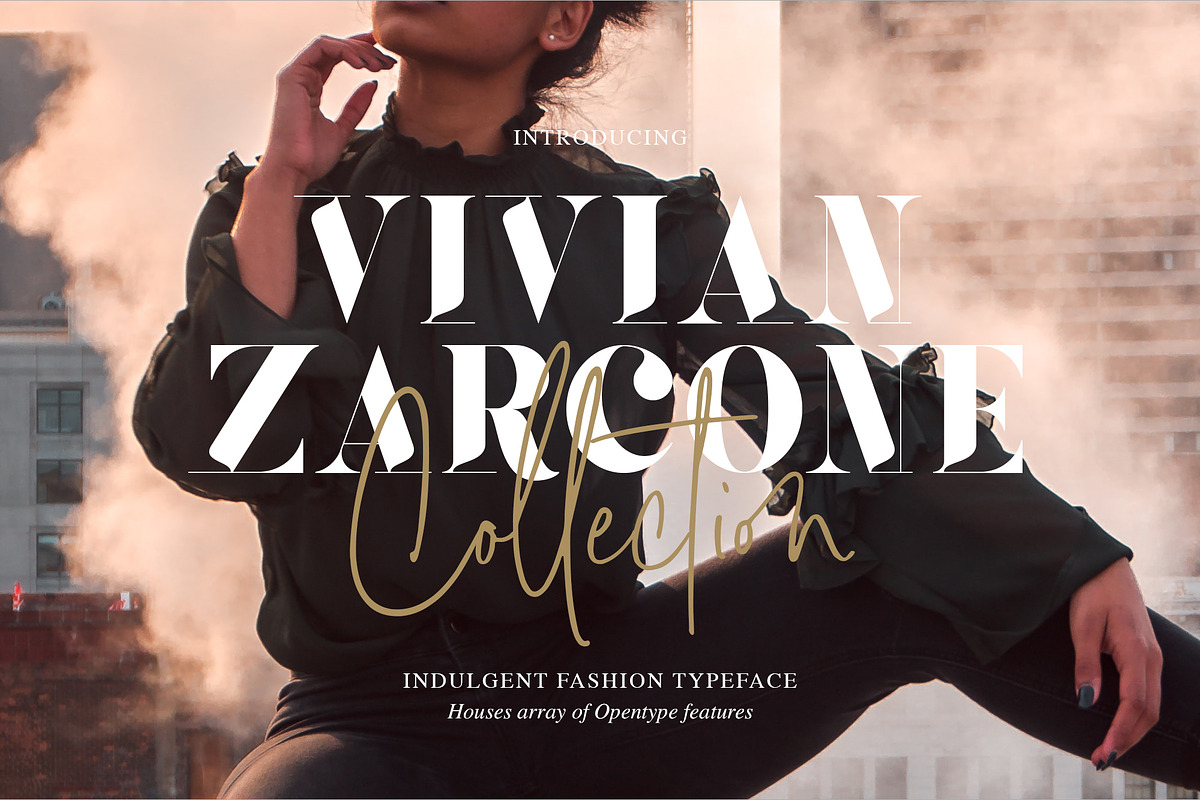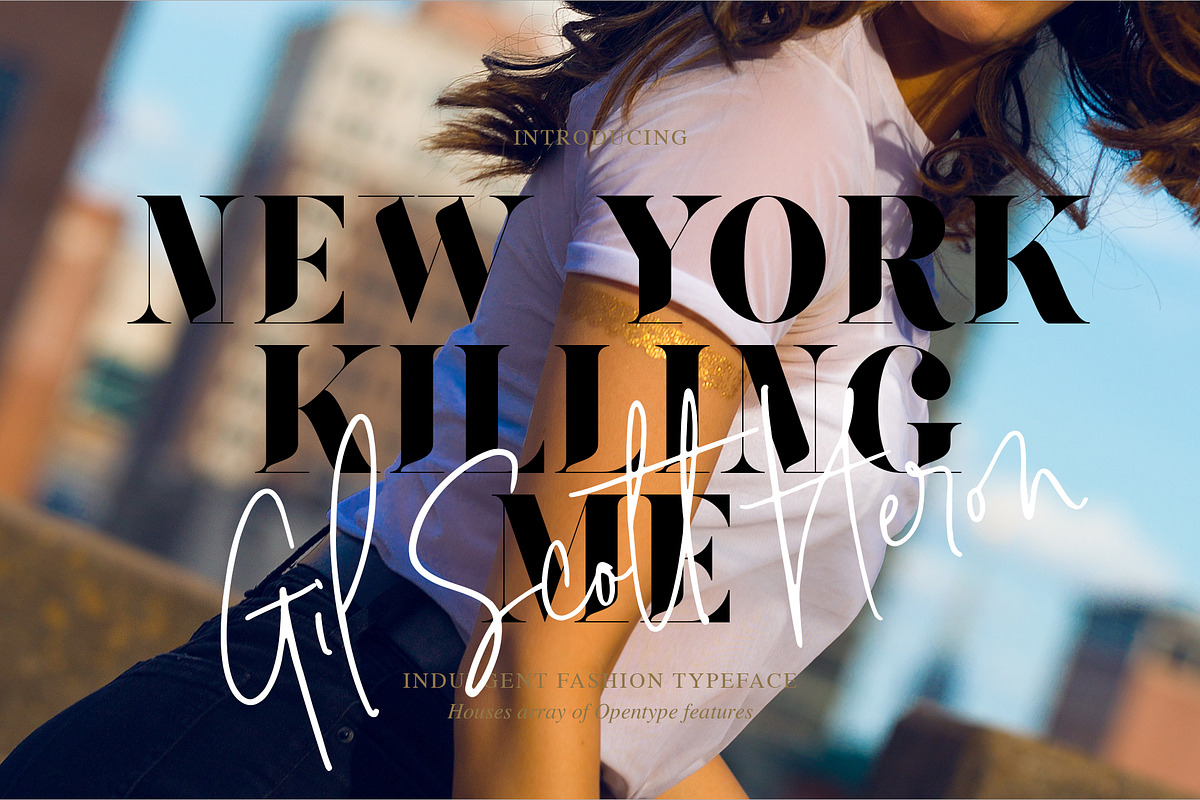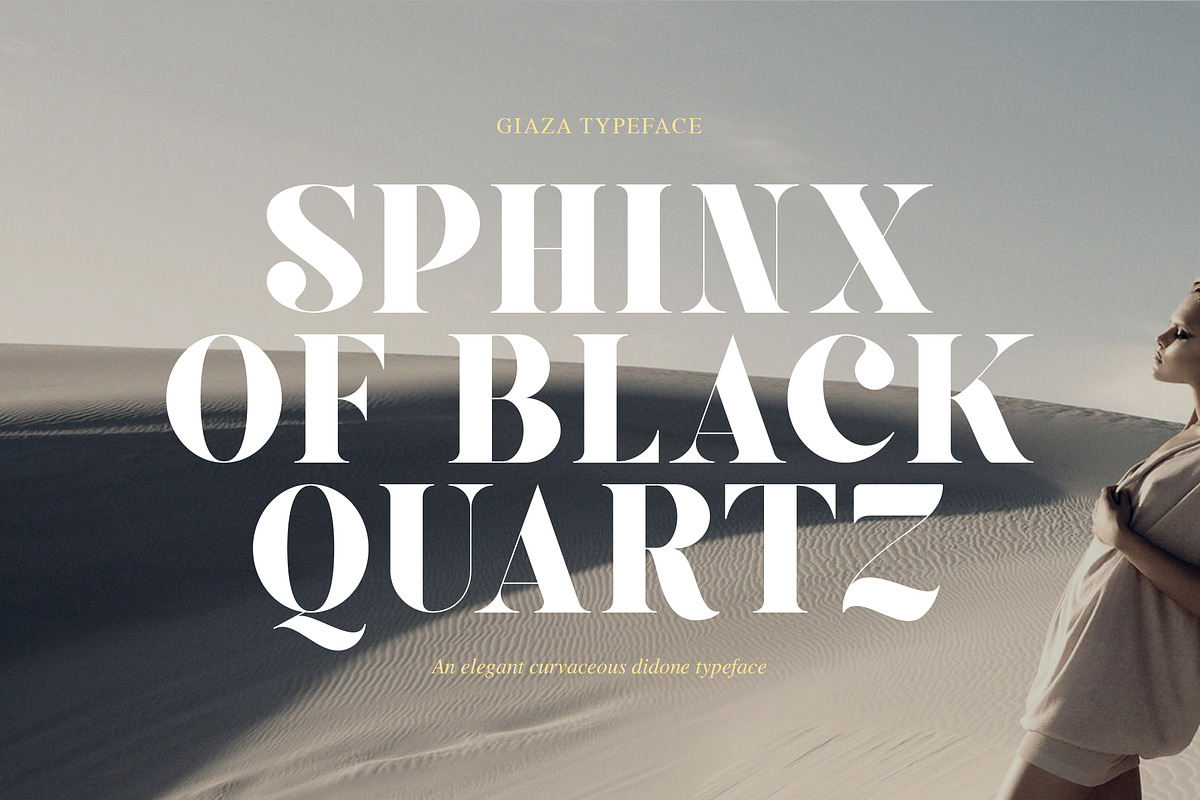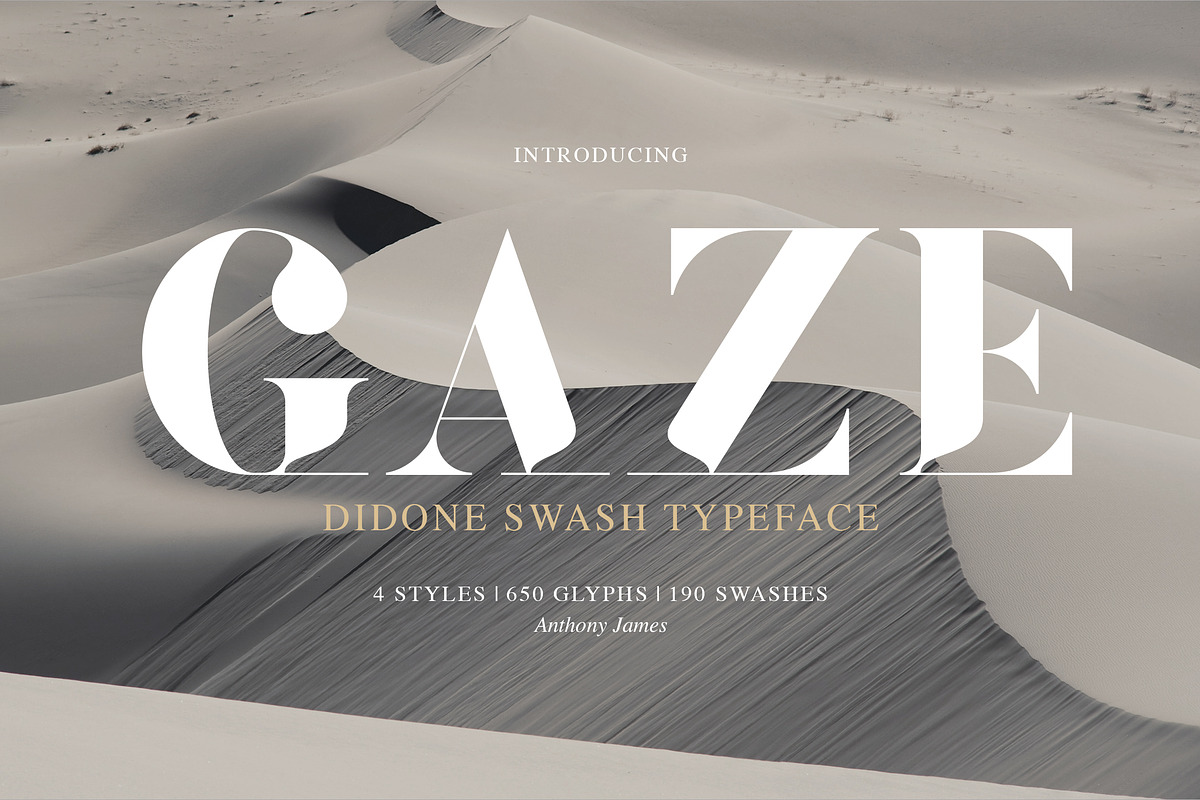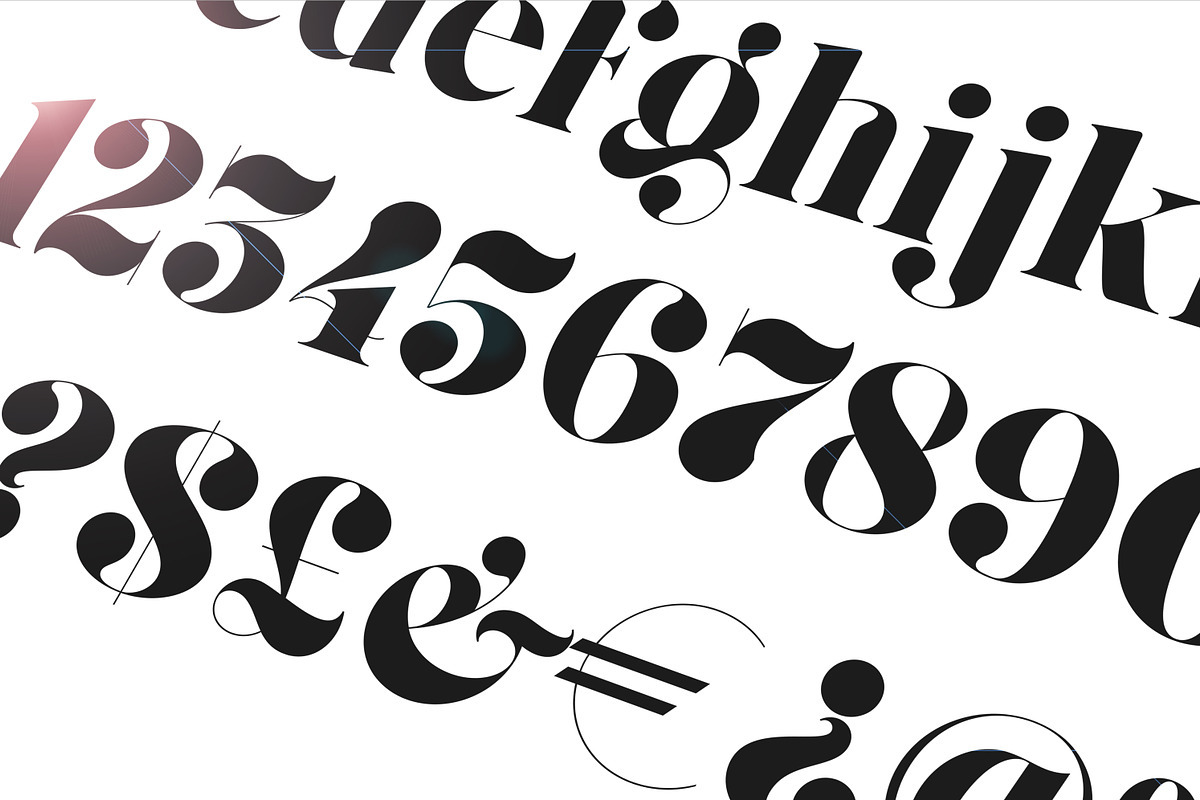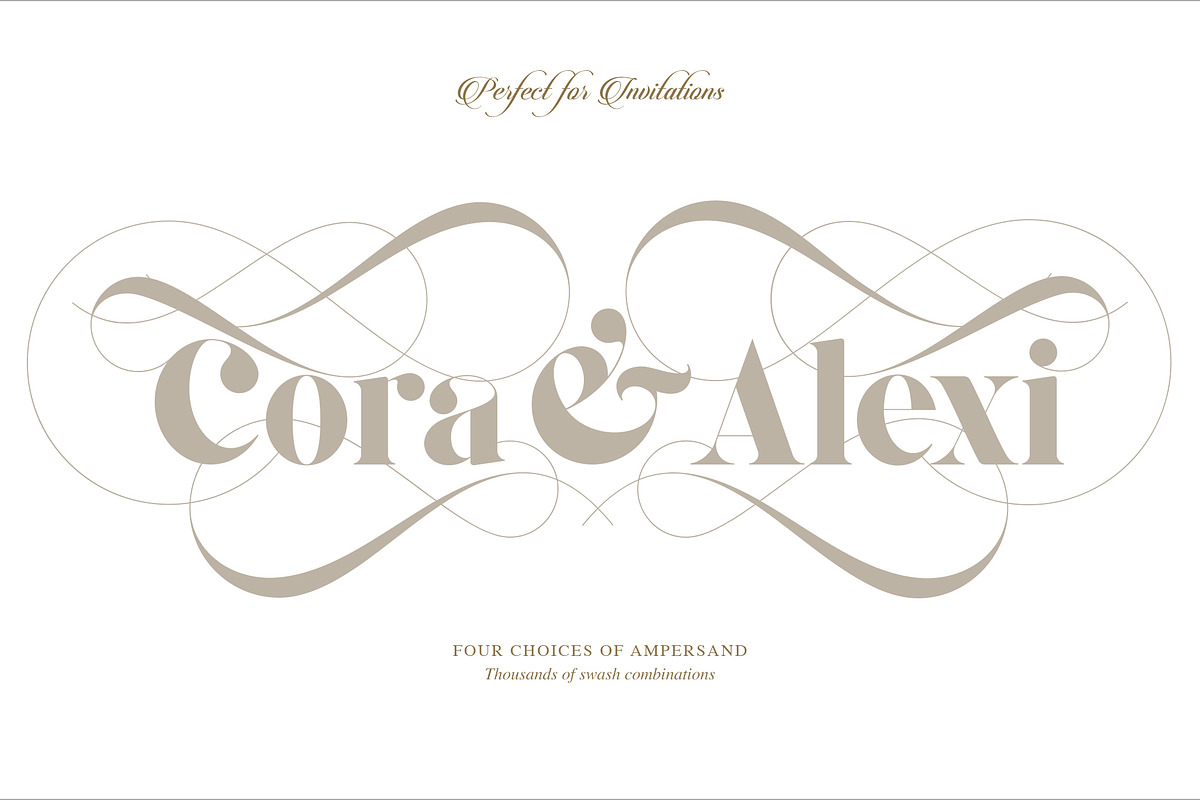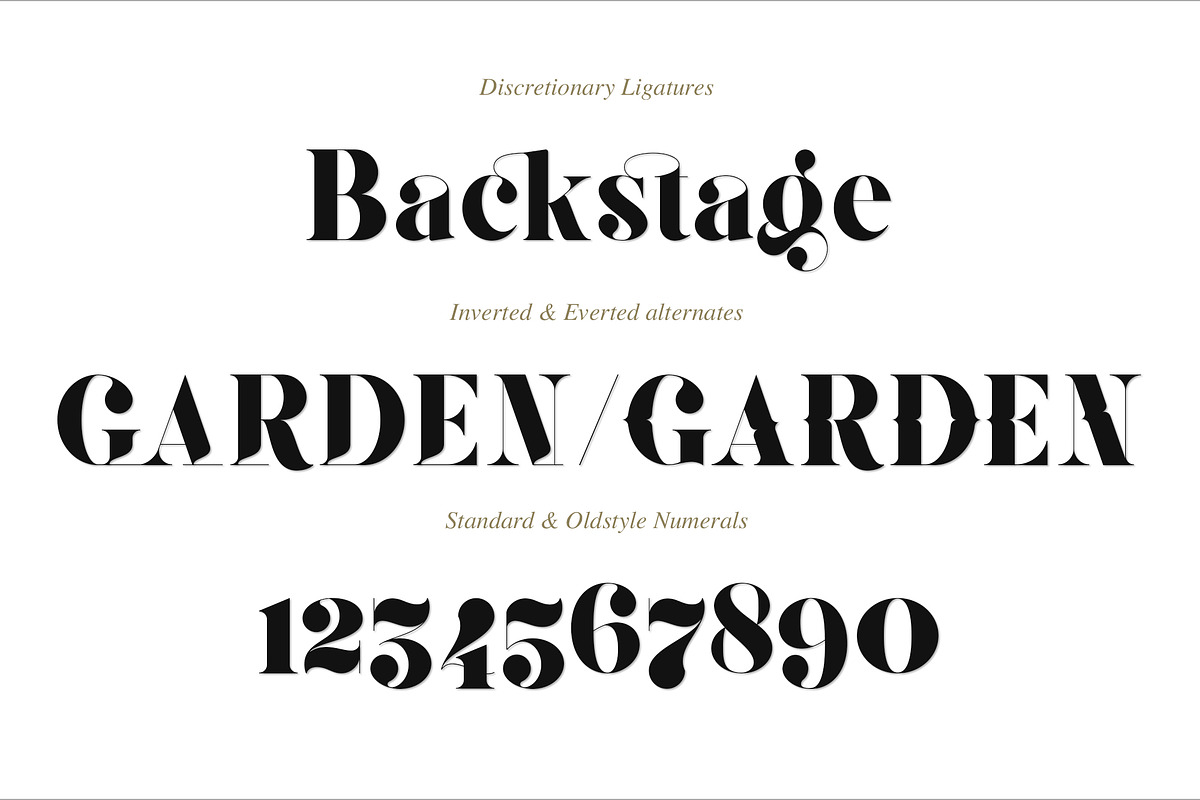
A Premium collection of Serif, San Serif, Didone, Stencil and Script fonts. Add a touch of elegance to your font library with these well-balanced, professional typefaces. Perfect as Display Fonts, this large collection of digital typefaces are perfect when combining with handwritten fonts. Housing a large array of weights, Opentype Features and swashes, to cater to any occasion.
Opentype Features: (Available on most of these fonts)
Stylistics alternates
Discretionary ligatures